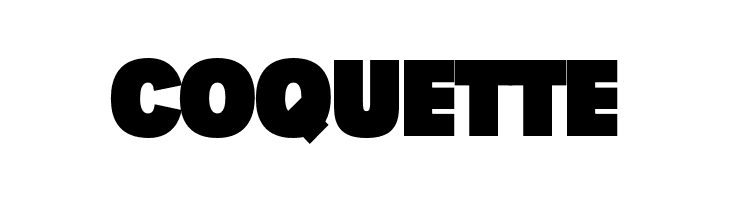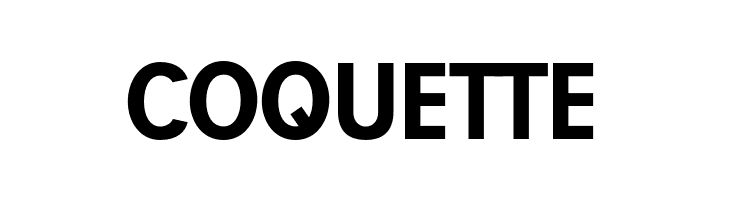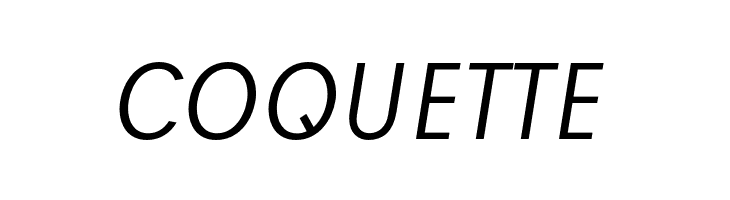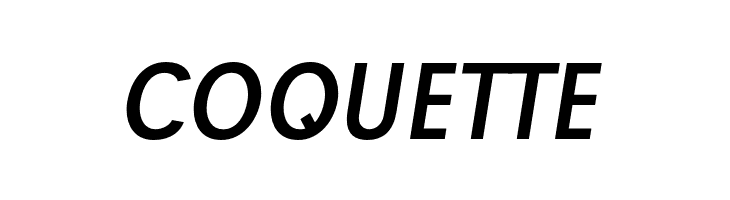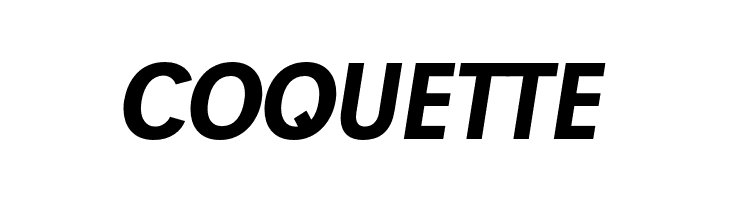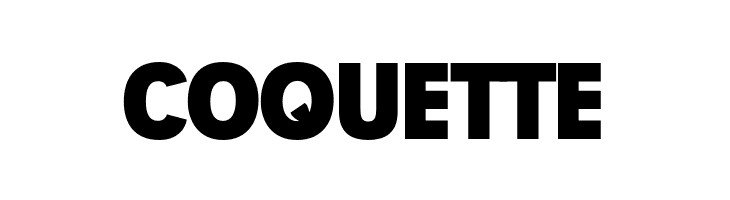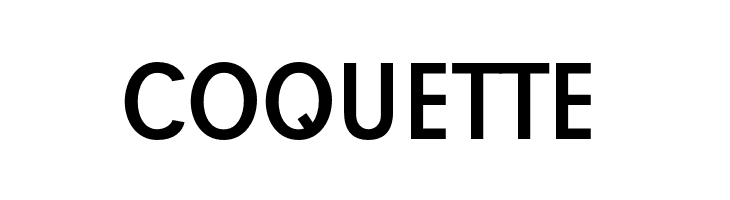
A bold, modern sans-serif font with clean lines and a slightly condensed width.
A bold, geometric typeface with strong, uniform strokes for impactful design.
A bold, modern font with thick, uniform strokes and a strong geometric structure.
A clean, modern sans-serif typeface with consistent stroke weight and balanced spacing.
A bold, modern font with thick, uniform strokes and high legibility.
A bold, modern sans-serif font with clean lines and a strong presence.
A bold, italicized font with a modern and sleek design.
A modern, light sans-serif font with low contrast and excellent readability.
A sleek, modern light italic font with elegant slanted characters.
A modern, italic sans-serif font with clean lines and balanced proportions.